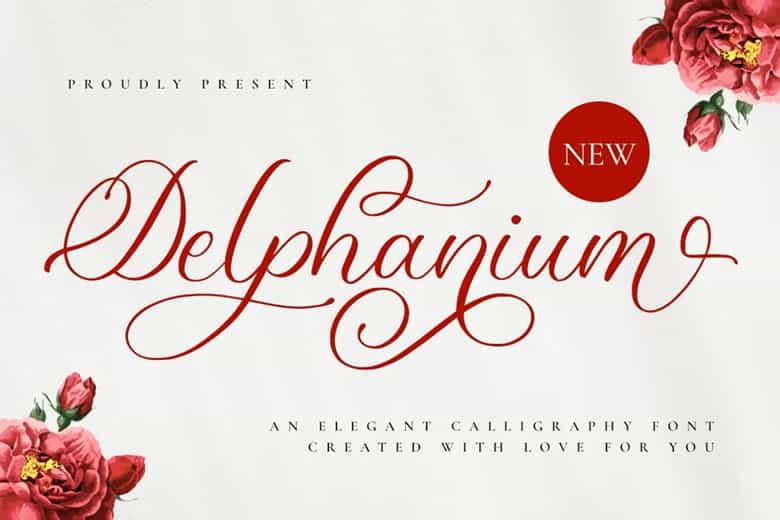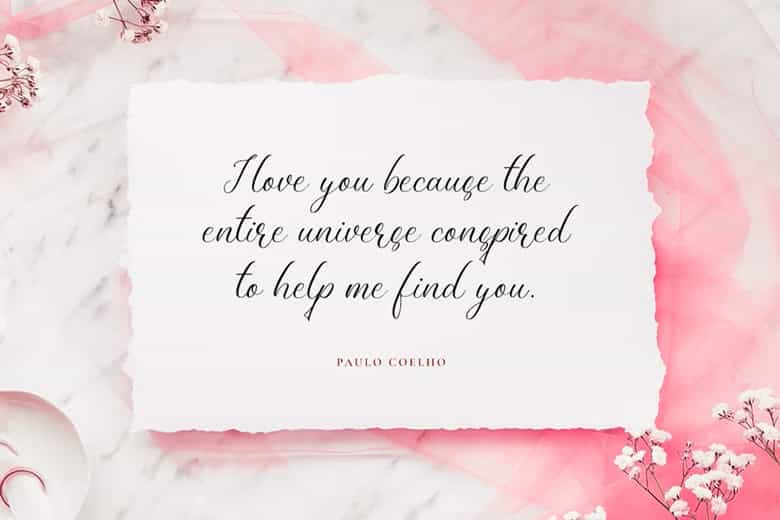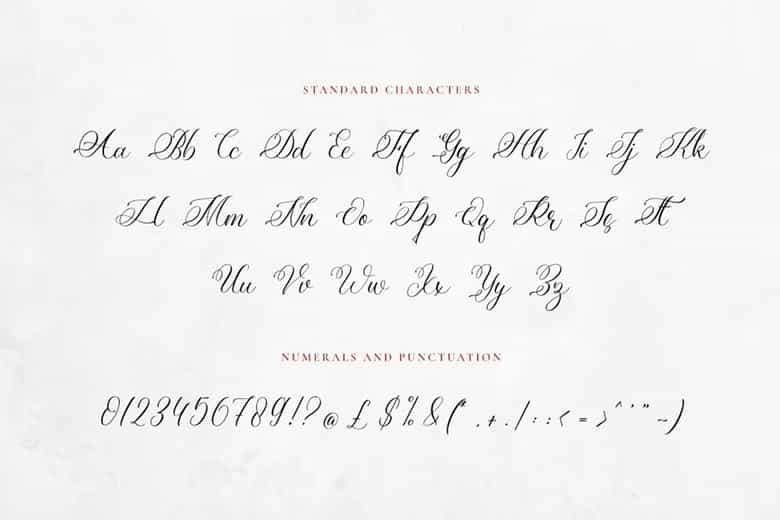
Delphanium is a modern delicate calligraphy script font that is oozing with charm and dramatic effect. It is going to give a touch of class to any design project you would like to design! This font is specifically designed to someone who wants a very beautiful and refreshing appearance in designs.